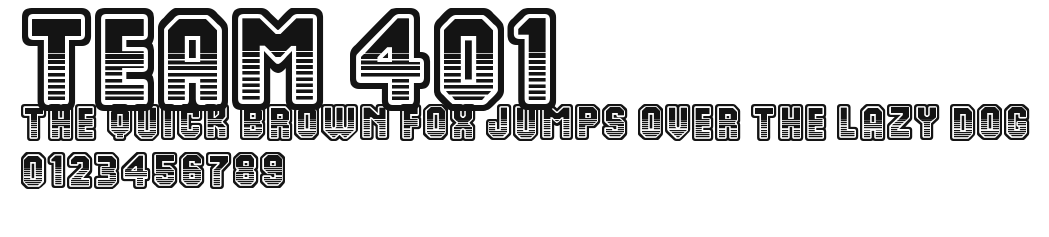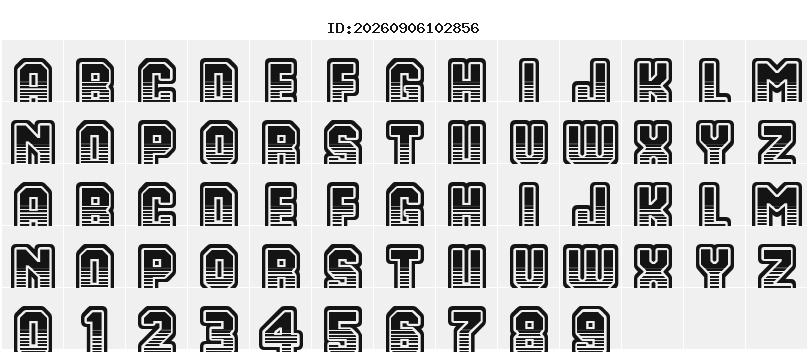
Team 401 Preview
• Font Name: Team 401
• Full Font Name: Team 401
About Team 401.ttf
Team 401.ttf is a modern, elegant sans-serif font designed for ultimate readability and visual harmony. Perfect for branding, headlines, web design, and print materials.